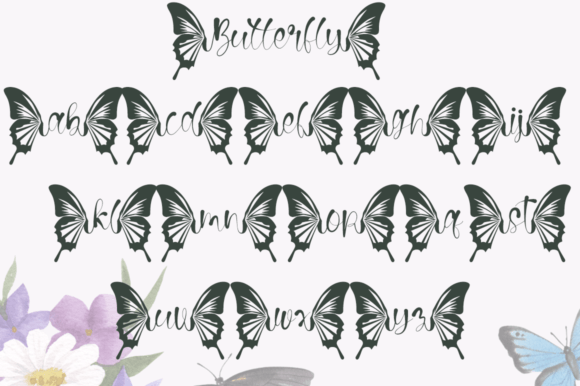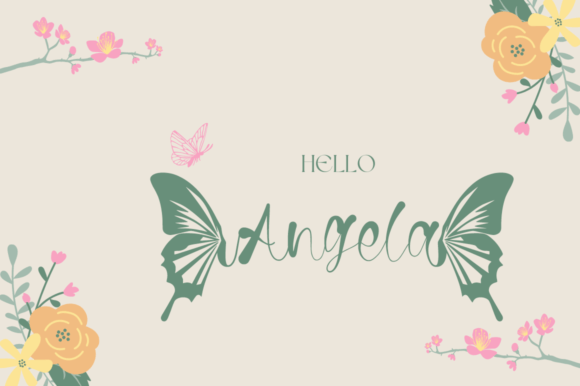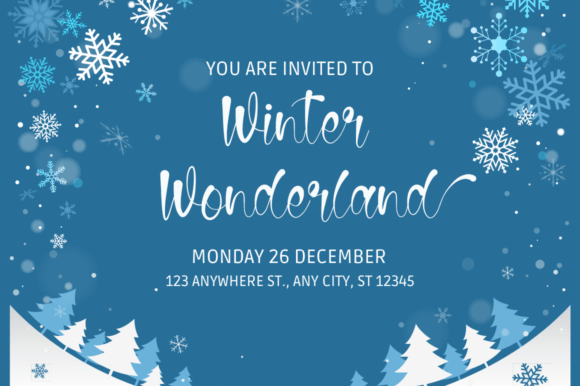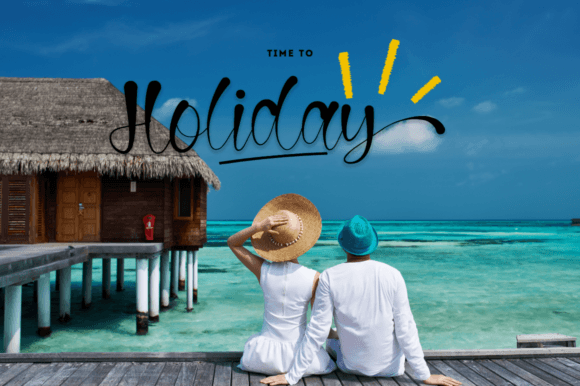
Butterfly font is a modern calligraphy design that combines casual elegance with beautifully crafted swashes. When you download Butterfly font, you gain access to a versatile typeface perfect for a wide variety of creative projects.
Casual Elegance Meets Modern Calligraphy
Butterflyfont offers a fresh, casual look that retains the charm of traditional calligraphy. Its smooth strokes and graceful swashes add a sophisticated flair to any design, making it stand out with subtle beauty and personality.
Versatile Uses for Every Project
This font is highly adaptable, making it suitable for numerous applications. Whether you’re designing logos, product packaging, wedding invitations, or branding materials, Butterflyfont enhances the aesthetic appeal effortlessly. It also works wonderfully for headlines, signage, labels, signatures, book covers, posters, and quotes.